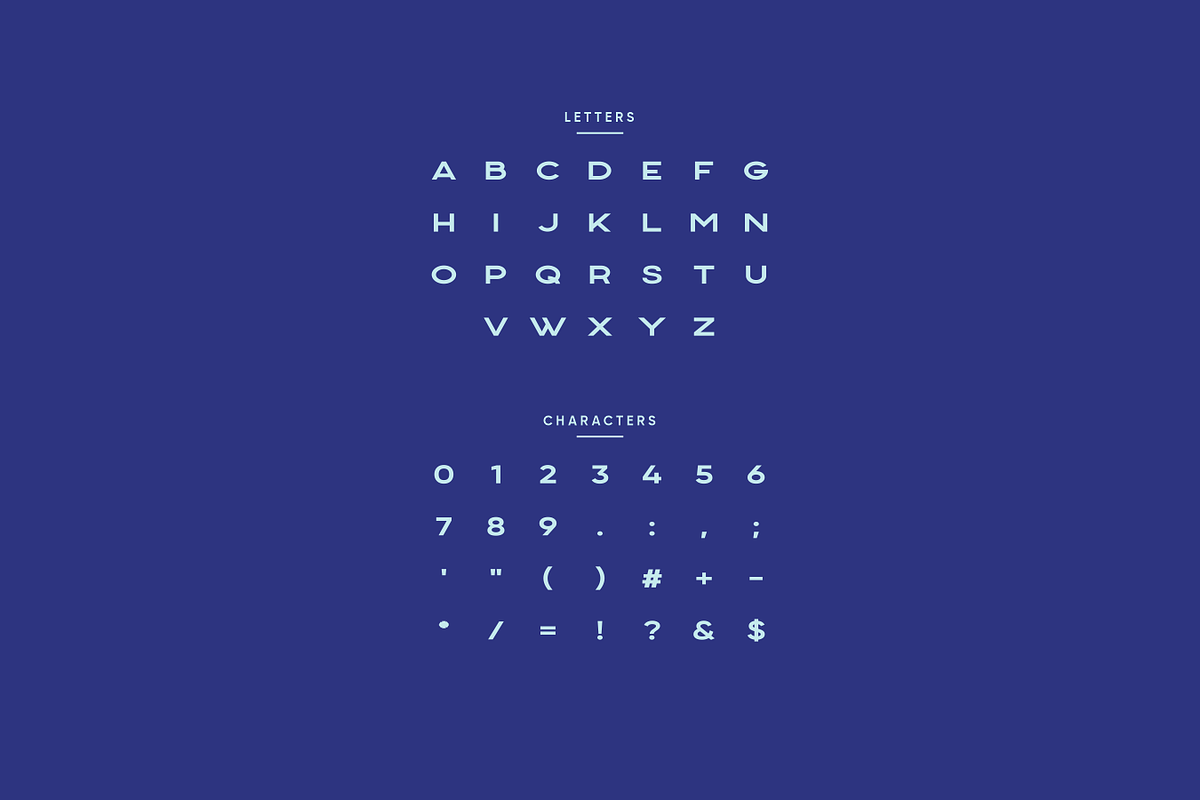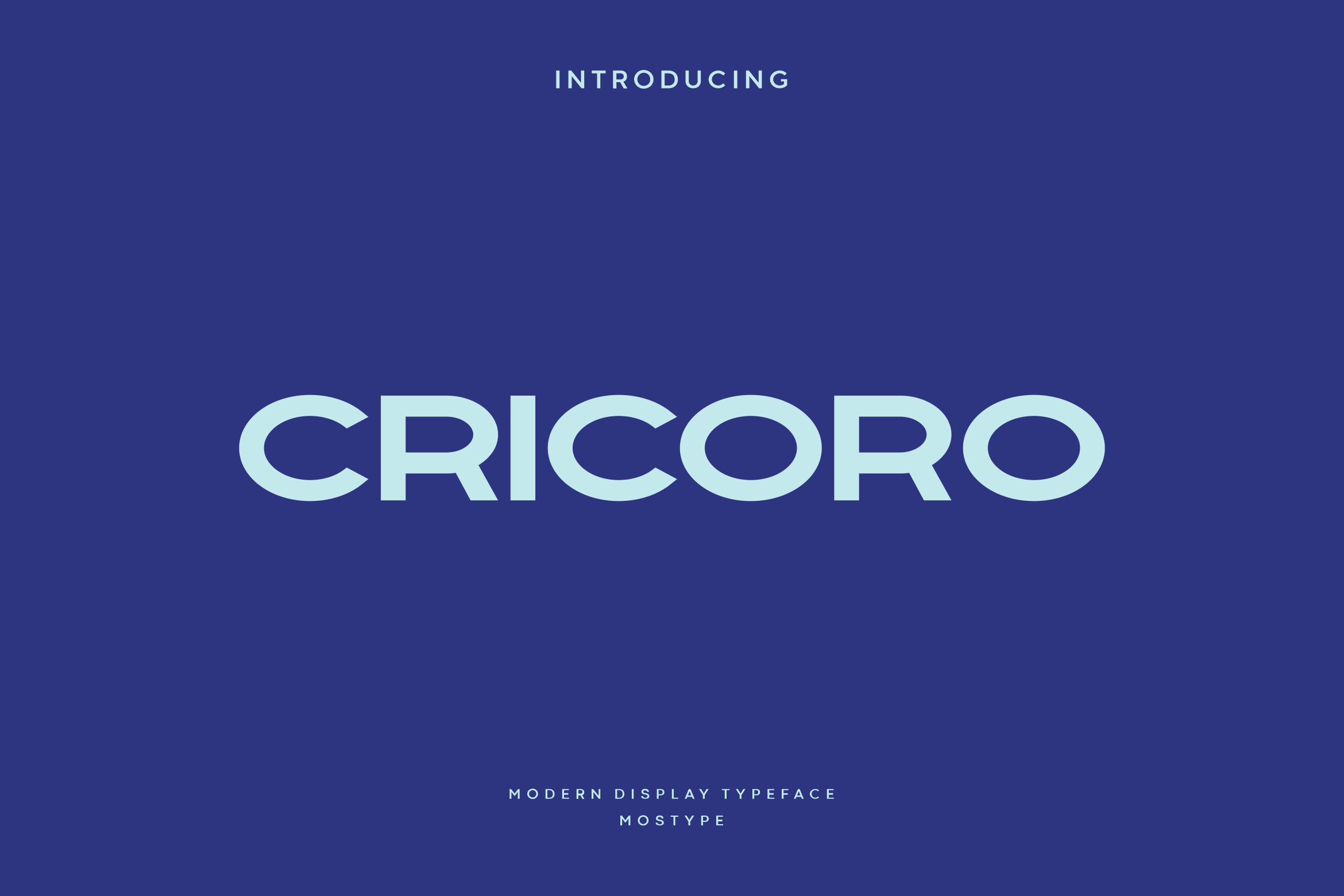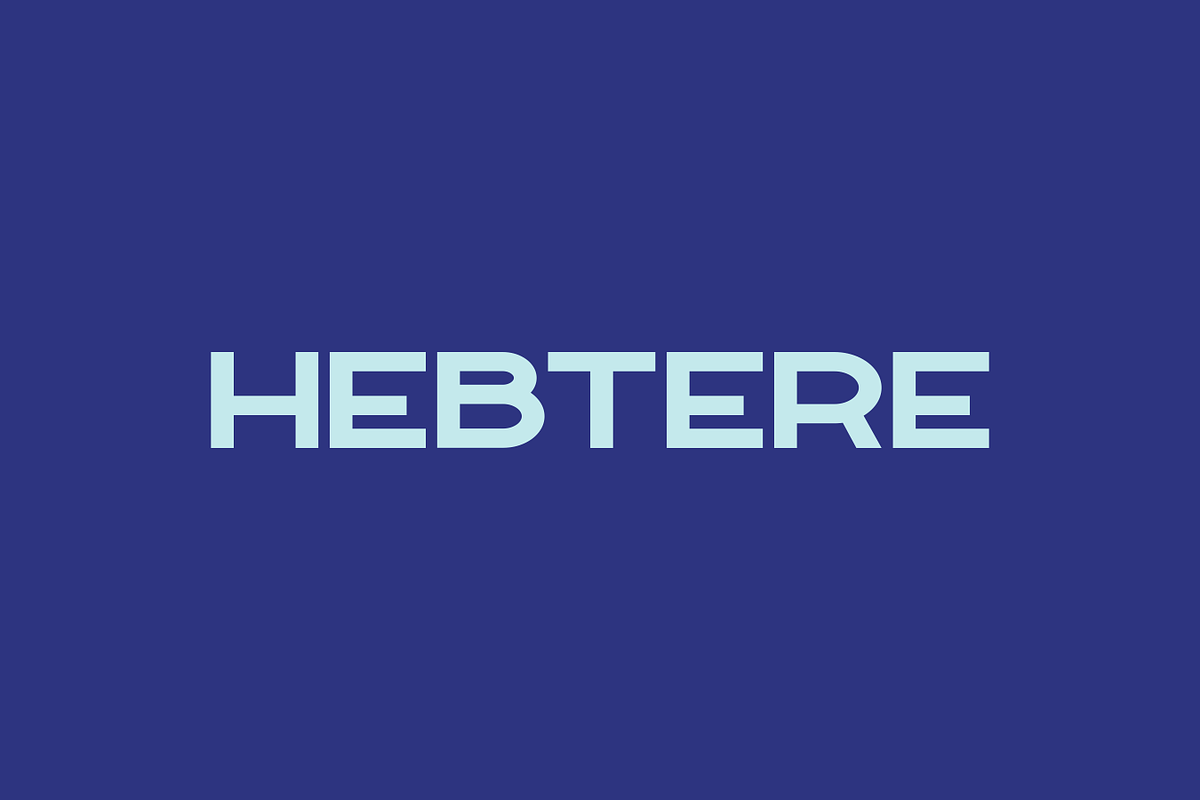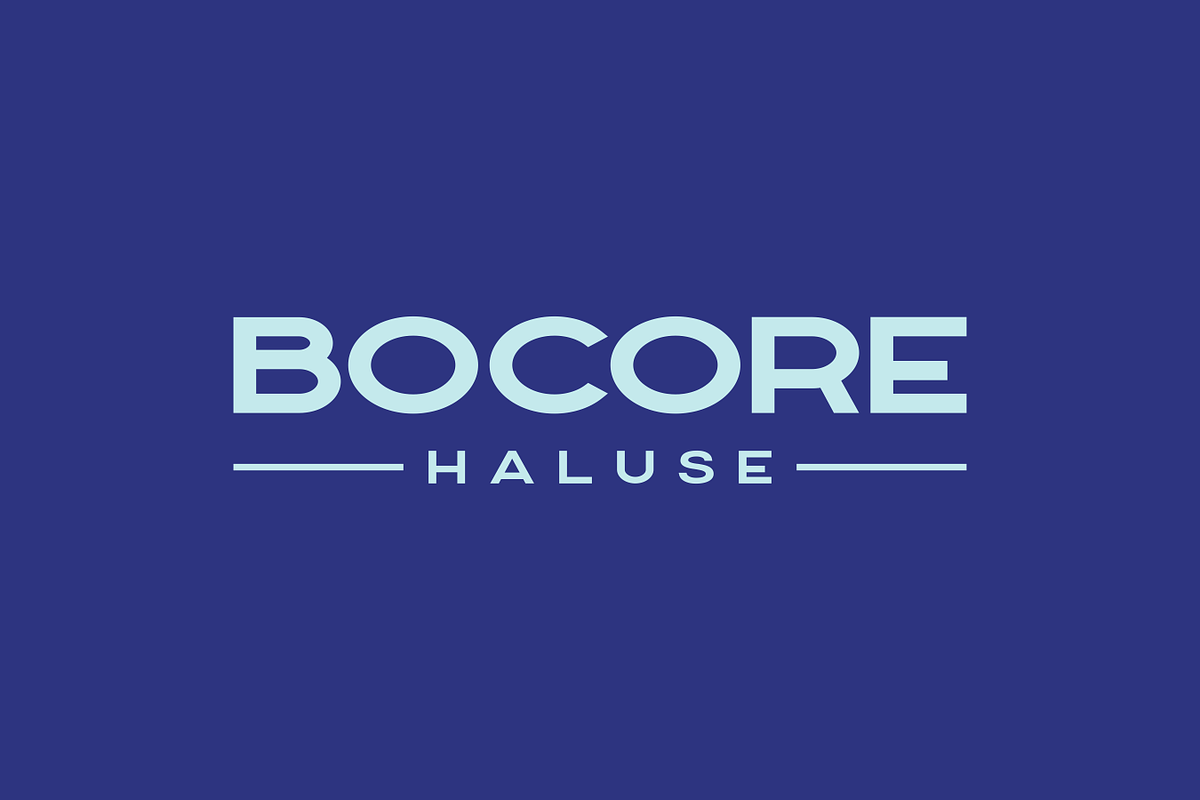
Cricoro - Modern Display Typeface
Cricoro is a display new generation typeface. This font was created with the vision of attracting the audience to your brand. The finest details of this typeface are methodically and mathematically created. Cricoro is created with all the tasks of a corporate font and also for the use in a variety of project, including branding product, logo, title, headline, poster, screen, display, digital ads, and everything else. We are putting a lot of effort on this font as a long-term project.
- Punctuation & Number